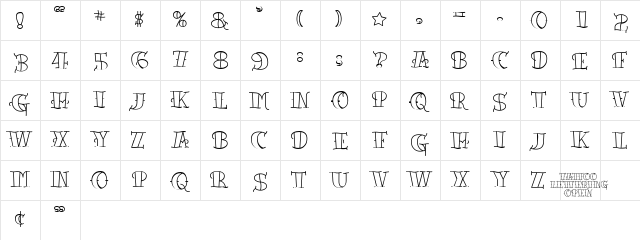
TattooLetteringOpen Regular
Design Context for TattooLetteringOpen Typeface
TattooLetteringOpen is a composed and adaptable typeface that performs quietly and consistently across a wide range of design contexts.